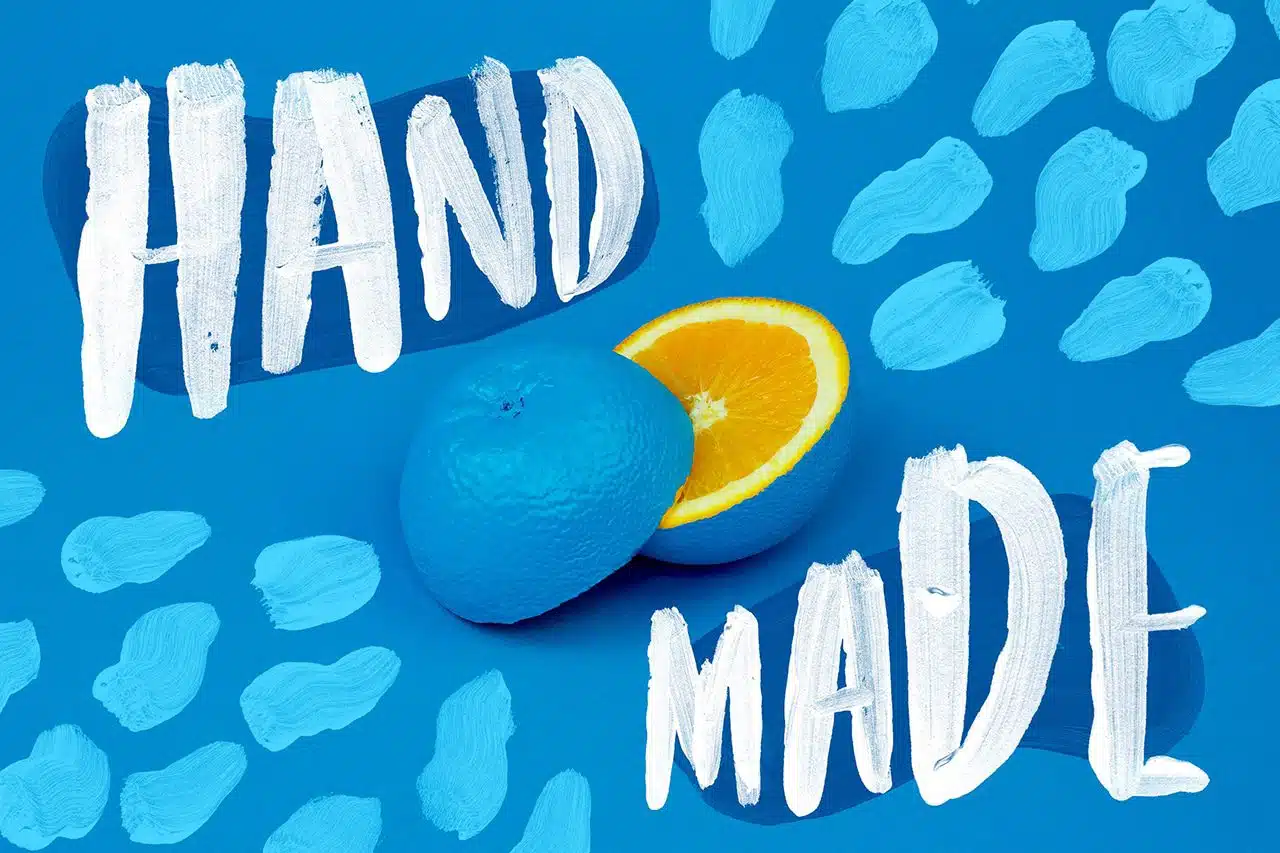
Embracing Authenticity: The Rise of Handmade Fonts in 2023 and Beyond!
In a world increasingly dominated by digital tech, there is a much-needed trend emerging where returning to basics, honoring craftsmanship, and embracing authenticity in various forms of design is the norm. One of the most exciting iterations of this trend (at least for me!) within graphic design is the use of handmade fonts, an aesthetic choice that’s gained significant momentum in recent years and a style that I am completely in love with.
Handmade fonts, often made with traditional tools such as brushes, nib pens, or even a simple pencil before being digitized, possess an authenticity that standard typefaces cannot replicate. This raw, unrefined edge offers a visually appealing contrast to the digitally created perfection we’ve grown accustomed to, and businesses are harnessing this unique aesthetic in their branding, logos, and marketing efforts. The reasoning behind all of this makes total sense from both a business and creative’s perspective. Let us dig into this a little more.
Why use Handmade fonts within Branding and Logo design?
Branding, aka a company’s identity, has seen a notable shift towards handmade fonts and designs in recent years, but why?
The organic, textured feel of these fonts endears brands to consumers by conveying an aura of authenticity, personal touch, and connection. The world is more informed now than ever since the rise of the internet, and brands can struggle to gain trust and build a connection between them and their customer. The inconsistencies and perfect imperfections of handmade fonts can translate into a brand image that is human, approachable, and engaging. Setting the stage as best as they can for a strong first impression.
While handmade fonts offer undeniable charm, they aren’t a universal solution. There are numerous scenarios where qualities beyond “authenticity, personal touch, and connection” are desired, making a more refined, precise design a more appropriate choice (most of the time). For example; Corporate and financial institutions, medical and healthcare, tech companies, academic or legal… you get the point.
Handcrafted Fonts: Helping You Stand out Since… Forever.
The use of handmade fonts in marketing and packaging is an excellent opportunity for businesses to tell their story in a captivating way. Handmade fonts can give print ads, social media campaigns, or even billboards a distinctive, organic look that immediately grabs attention. They can be playful or serious, rustic or modern, enabling brands to develop a distinctive voice in their marketing efforts.
Similarly, packaging designs featuring handmade fonts tend to stand out on the shelves. Call me biased, but test this theory for yourself! They communicate an image of being artisanal, eco-friendly, or even luxurious, depending on how the design is implemented and what fonts are used.
The Authenticity Factor
Above all, the rising popularity of hand-drawn fonts signifies a broader cultural shift towards authenticity. In an era where consumers are bombarded with digital content, they are increasingly seeking connections that feel real and genuine. Brands using handmade fonts are essentially making a statement that they value authenticity, a trait highly appreciated by today’s consumers.
This authenticity extends beyond just the visual appeal of handmade fonts; it taps into a broader narrative. It tells a story of a brand that respects craftsmanship, invests in uniqueness, and isn’t afraid to be imperfect. In essence, the use of handmade fonts is as much a branding decision as it is a design choice!
The Future of Handmade Fonts
As we look toward the future of graphic design, it seems the trend of handcrafted fonts is here to stay. The versatility, distinctiveness, and authenticity they offer make them an attractive design choice across different mediums and industries. That said, I believe the future will also demand balance. As a type designer who predominantly puts out handmade fonts, I often celebrate imperfections, but I have recently been exploring the ‘clean and perfect’ in an attempt to strike a balance and build bridges between the styles. Feel free to follow along!
In conclusion, the ascendance of hand drawn fonts is a testament to the timeless appeal of authenticity and craftsmanship. It is a creative response to an increasingly digital world, representing a yearning for connection, individuality, and genuineness. The future will be one where we see a fusion of this traditional approach with new digital innovations (the rise of SVG fonts being a beautiful example!).